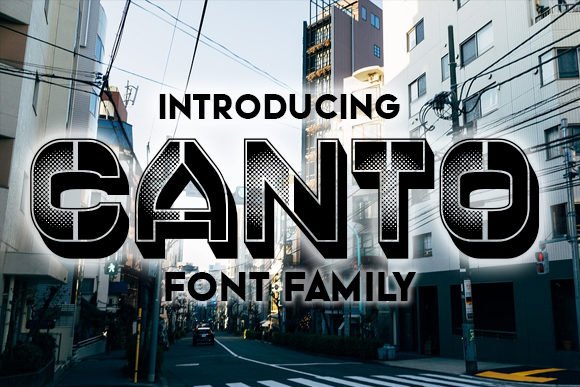
Unleash Your Creativity with Canto Font
Have you ever stared at a blank canvas, waiting for inspiration to strike? You’re not alone. Many designers have been there, searching for that perfect spark to bring their ideas to life. For some, it’s the perfect font that sets the tone for their entire design. That’s where Canto Font comes in – a bold gradient display font that’s sure to elevate your creations.
This versatile font is designed to add a touch of sophistication and elegance to your designs. Whether you’re working on a logo, poster, or social media graphic, Canto Font is the perfect companion to help you express your creativity. With its endless variations, you can experiment and find the perfect look to suit your style. Whether you’re a seasoned pro or a budding designer, Canto Font is an invaluable tool that will help you take your designs to the next level.
Canto Font Key Features
- Unique Characteristics: Canto Font features a unique, elegant design with a subtle flair, making it ideal for use in publishing, advertising, and other creative industries.
- Font Styles: Canto Font includes a range of font styles, including regular, bold, italic, and bold italic, allowing for versatility in typography.
- Scalability: Canto Font is highly scalable, making it suitable for use in a variety of applications, from small text to large headlines.
Canto Font Review
Canto Font is a beautiful, modern sans-serif typeface that has gained popularity among designers and developers alike. It works well in a variety of contexts, from digital displays to print materials. ✨ Here are a few reasons why:
- Legibility**: Canto Font is incredibly easy to read, making it perfect for body text, headings, and even signage.
- Flexibility**: It can be used in both formal and informal settings, from corporate reports to social media graphics.
- Unique Character**: Canto Font’s distinctive personality sets it apart from more generic sans-serif fonts, adding a touch of sophistication to any design.
However, there are some limitations to consider. ⚠️ For example:
- Readability at Small Sizes**: While Canto Font is generally legible, it can become difficult to read at very small sizes (e.g., in mobile menus or captions).
- Limited Weight Options**: Canto Font has a limited number of weight options, which may not be ideal for designers who need a wide range of font weights.
Overall, Canto Font is a solid choice for designers looking for a modern, elegant sans-serif typeface. While it may have some limitations, its unique character and flexibility make it a valuable addition to any design toolkit.
Canto Font is a great choice for Canva designs, especially for headings and titles.
Canto Font can be used for various design elements in Photoshop and Illustrator, such as logos, headings, and captions.
Canto Font is a great choice for PowerPoint and Word documents, especially for headings, titles, and captions.
2. Use Canto Font for headings and titles to create a cohesive and professional look.
Canto Font is commonly used for:
1. Headings and titles in designs and documents.